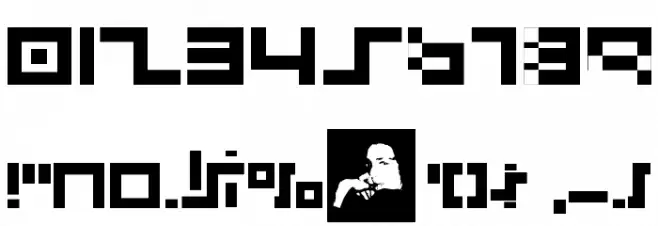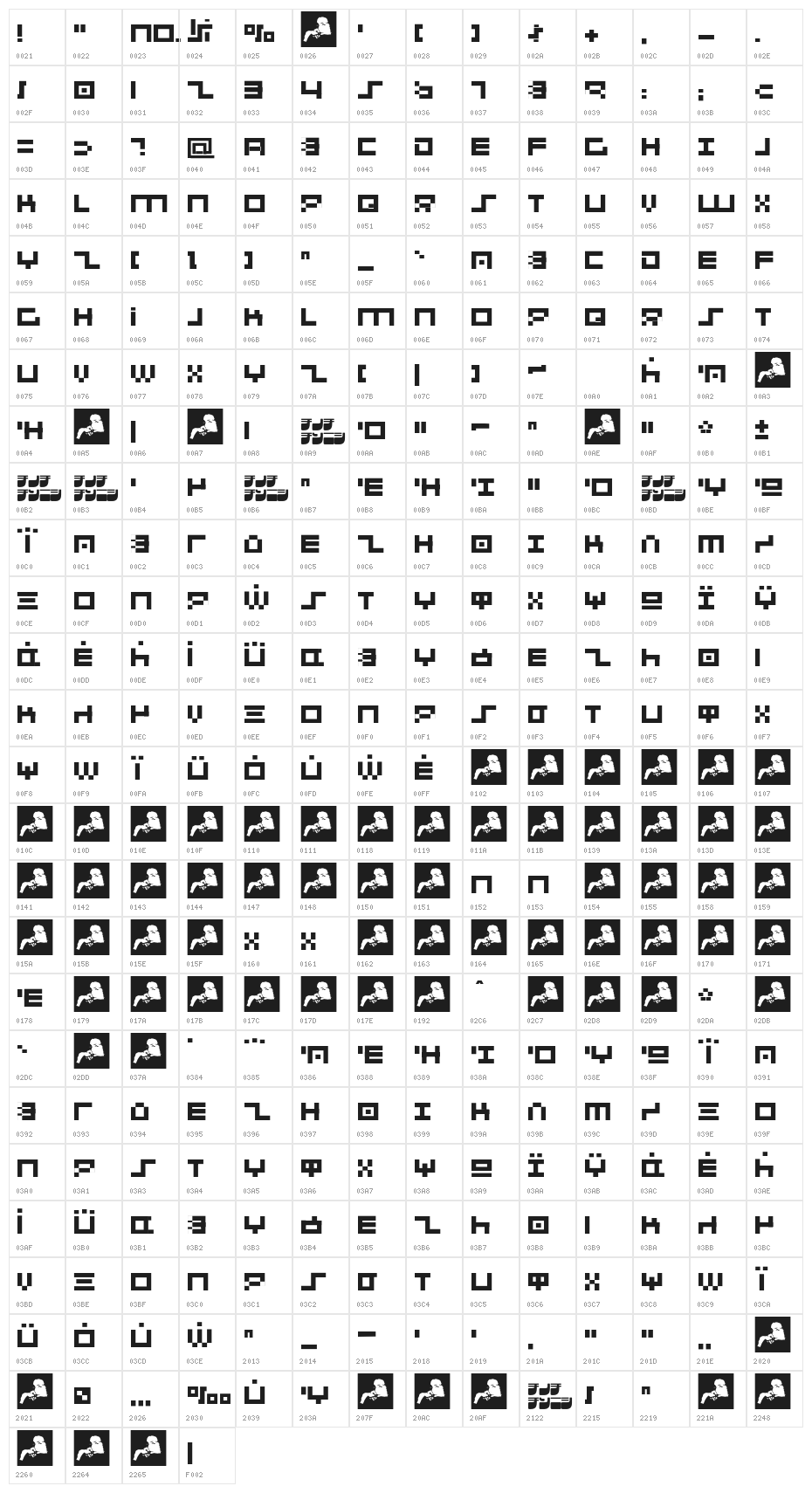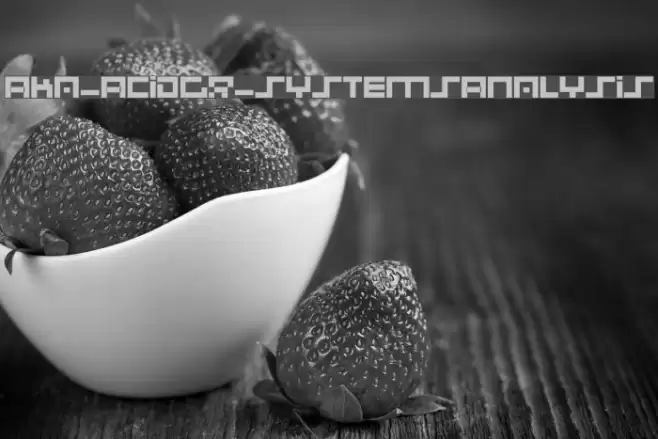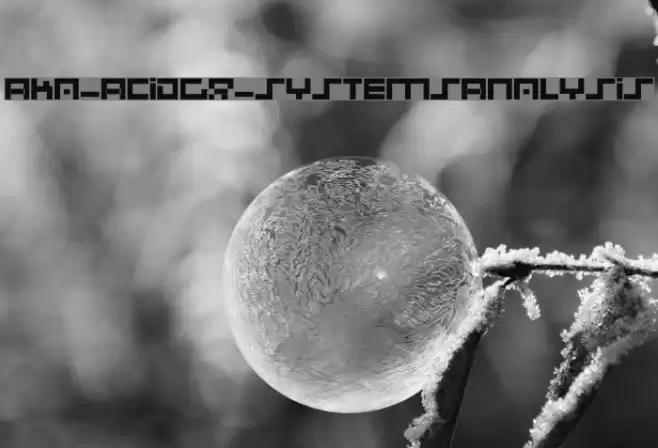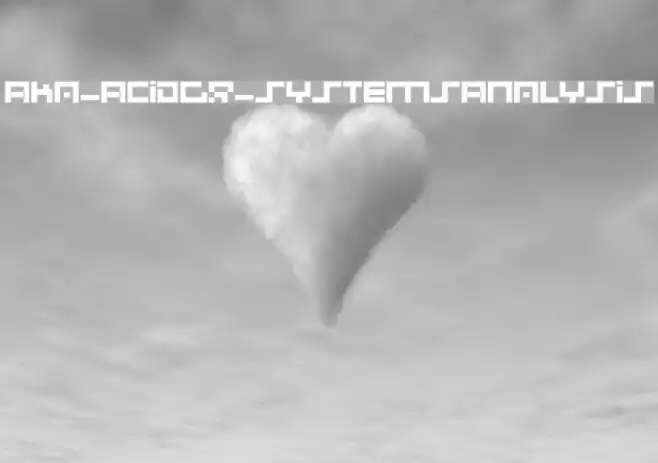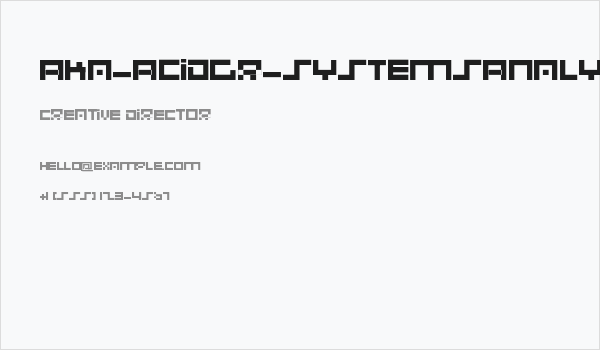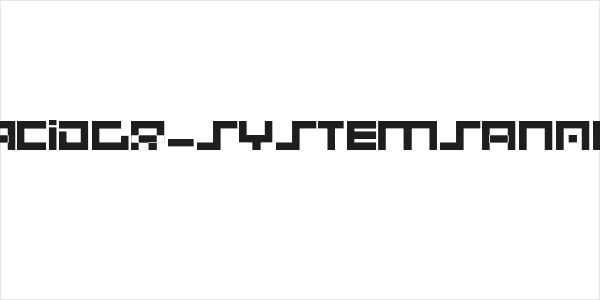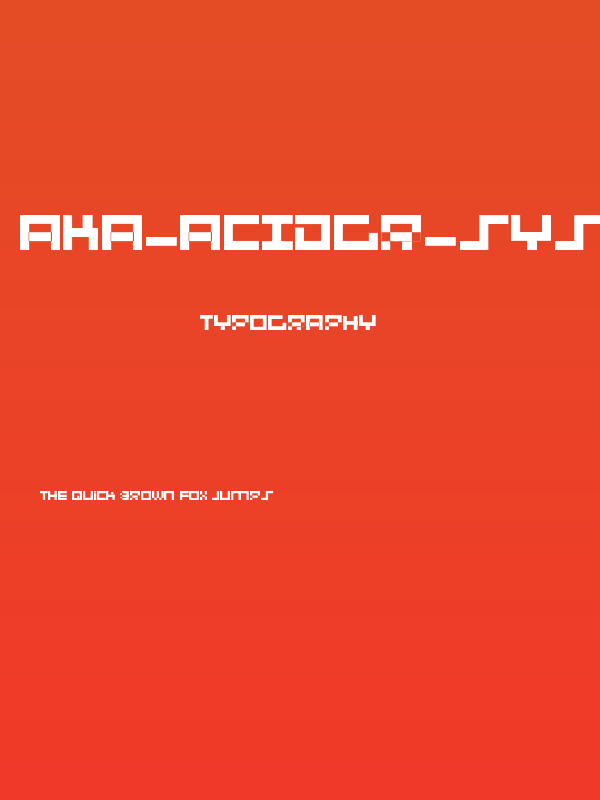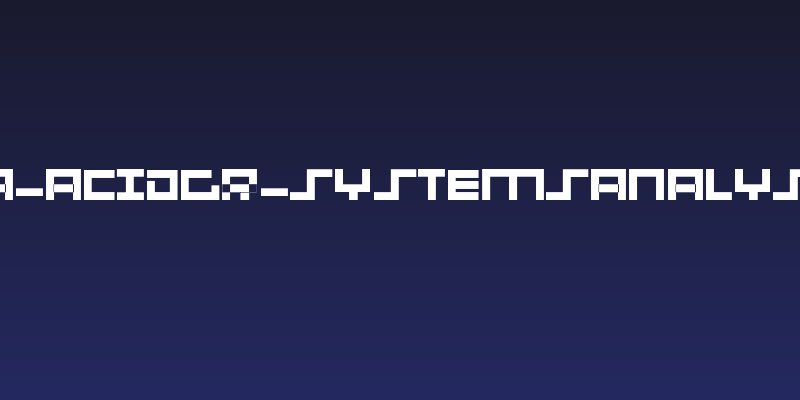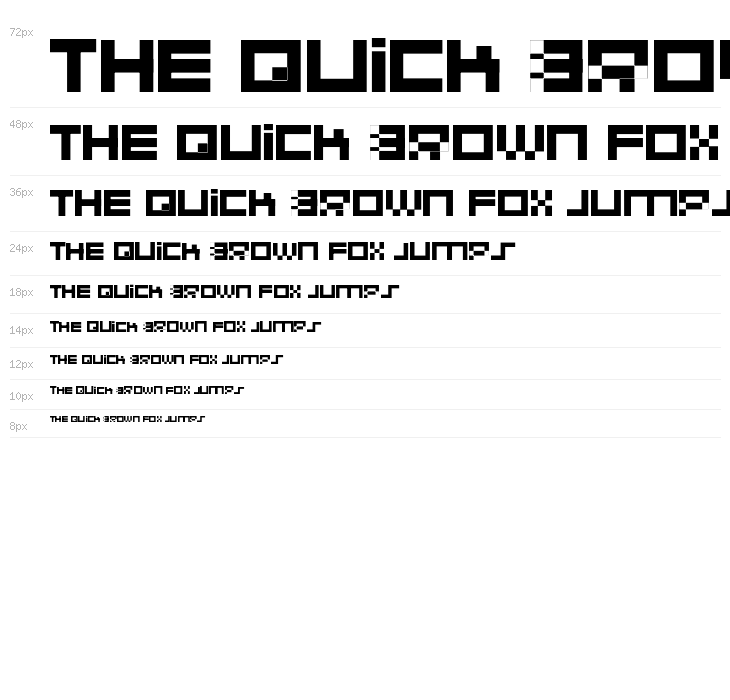
Aka-AcidGR-SystemsAnalysis Font
Aka-AcidGR-SystemsAnalysis Description
This font features a bold, geometric design with a distinctly digital aesthetic. The characters are constructed with sharp, angular lines and a blocky structure, reminiscent of early computer graphics or pixel art. The uppercase and lowercase letters maintain a consistent height, creating a uniform appearance. The numerals and special characters follow the same design principles, ensuring cohesion across all glyphs. The font's unique style makes it stand out, with a futuristic and tech-inspired vibe that is both eye-catching and memorable.
| Proposed Projects | Ideal for tech-related branding, video game design, digital art projects, and futuristic-themed posters. |